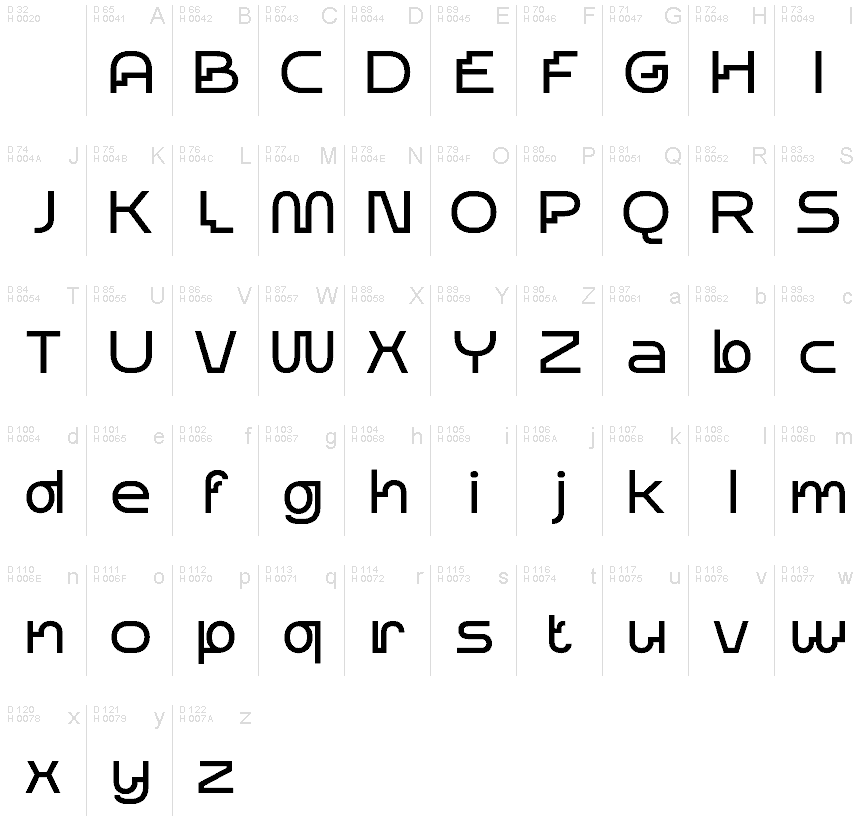
CS Lorena Demo Regular
CS Lorena font by Craft Supply Co. is a display, expanded font with modern and geometric shapes inspired by clean lines. The text reveals minimalist aesthetics yet holds appeal in contemporary applications that require simple yet striking typography.